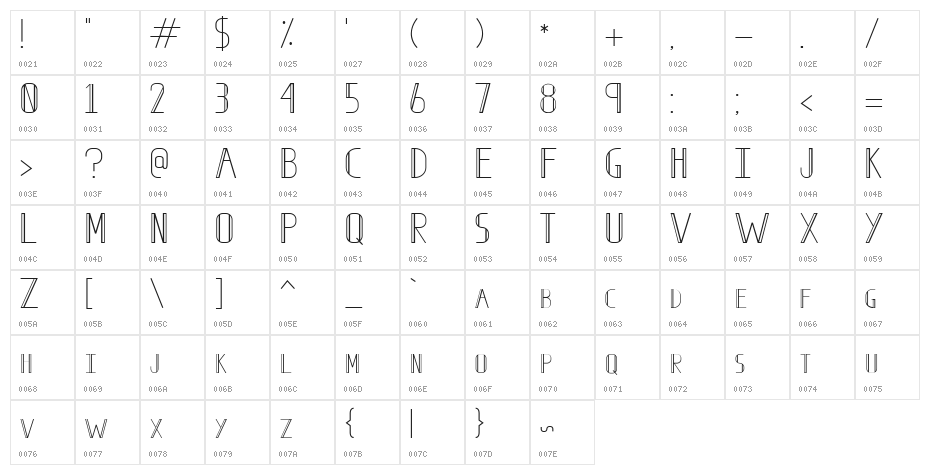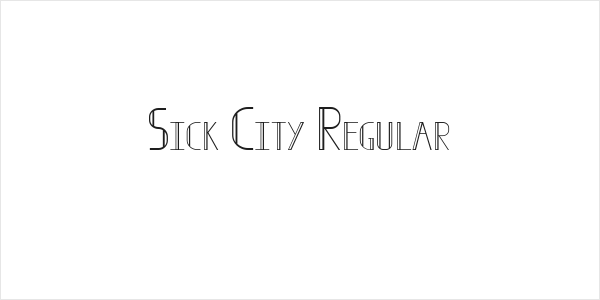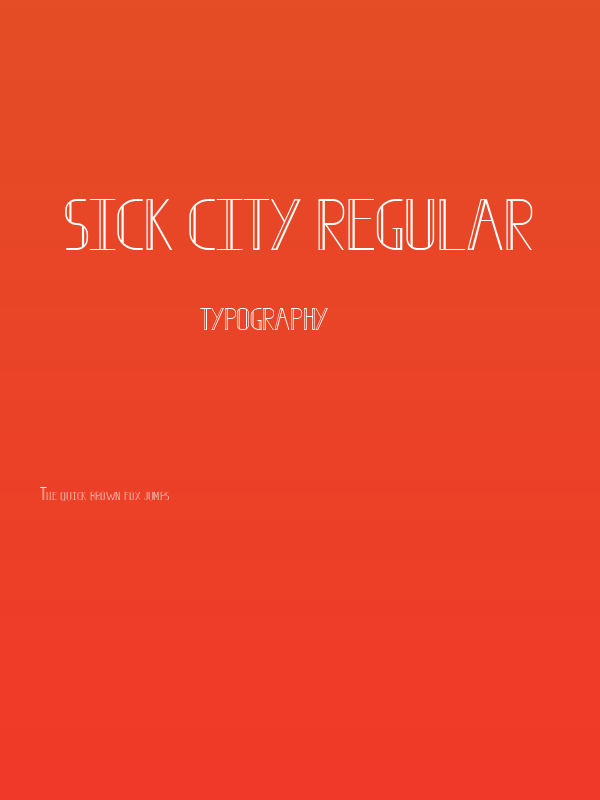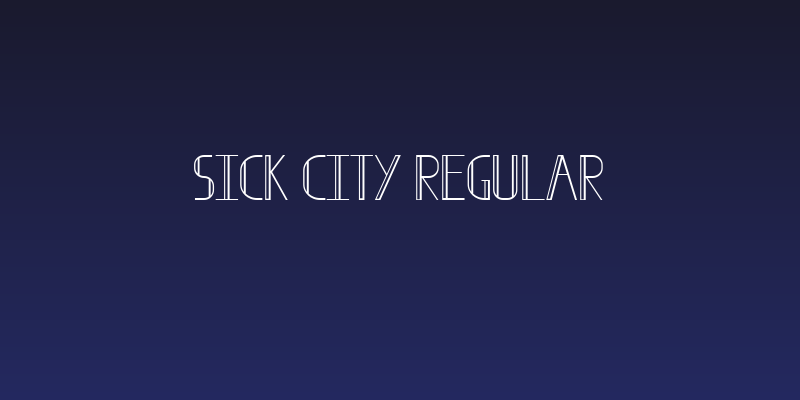
Sick City Regular Font
Sick City Regular Description
This font features a modern and geometric design with a distinctively narrow and elongated form. The characters are constructed with clean, straight lines and sharp angles, giving it a sleek and futuristic appearance. The uppercase and lowercase letters maintain a consistent height, contributing to a uniform look. The numerals and special characters follow the same design principles, ensuring a cohesive style throughout. The font's minimalistic approach makes it versatile for various design applications, while its unique structure adds a touch of sophistication.
| Proposed Projects | Ideal for futuristic branding, tech-related designs, modern posters, and minimalist logos. |